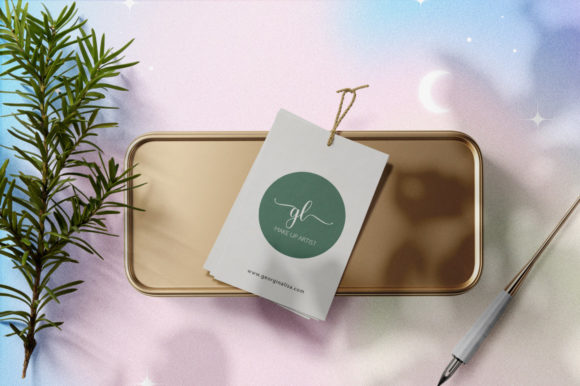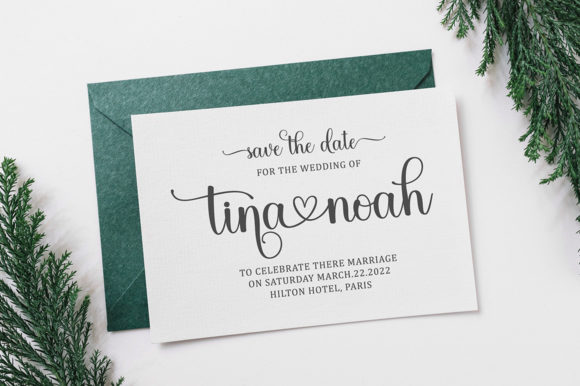
Bridal Ceremony Font
db-ku.com - Script & Handwritten -- Bridal Ceremony is a script font that is subtle, romantic and has a very unique love swash. This font is perfect for title designs such as clothing, invitations, book titles, stationery designs, quotes, branding, logos, greeting cards, T-shirts, packaging designs, posters and more.